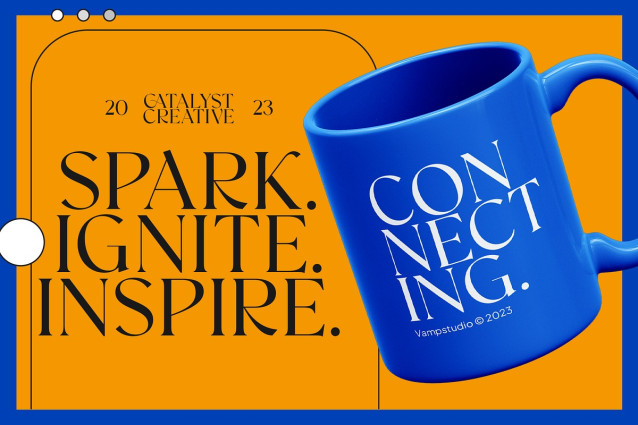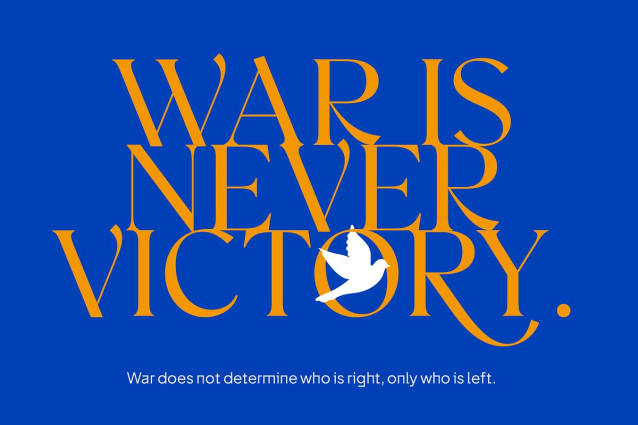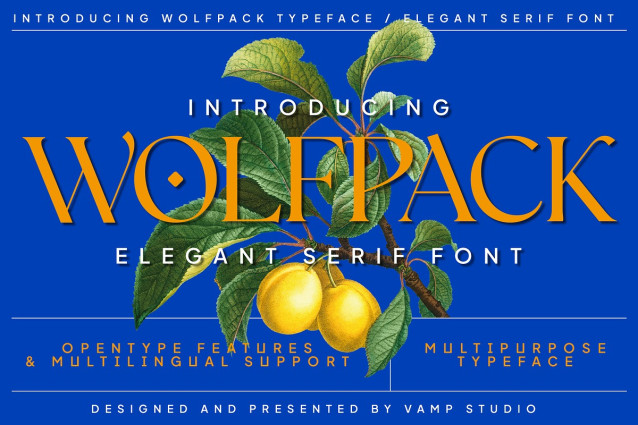
Wolfpack Font
Wolfpack Font an exquisite serif font meticulously crafted to exude elegance and luxury in every stroke.Immerse yourself in the sophistication of this font’s design, where each character embodies a sense of refinement and timeless class. “Wolfpack” is not just a font; it’s a statement – a fusion of sleek serifs and graceful curves that exude opulence and prestige.